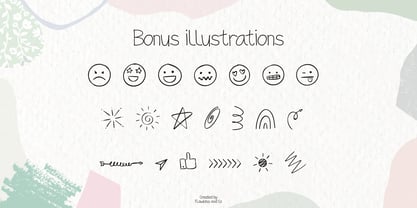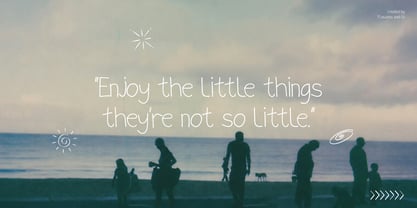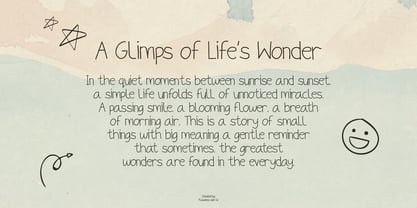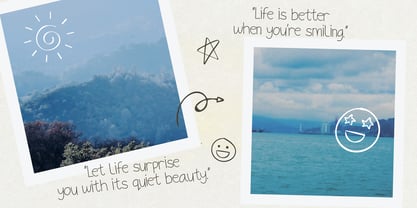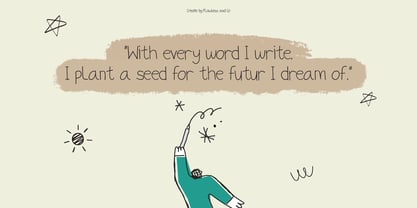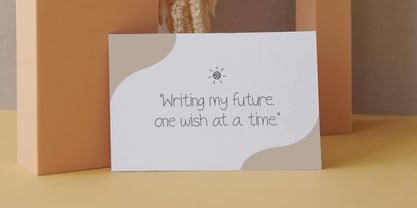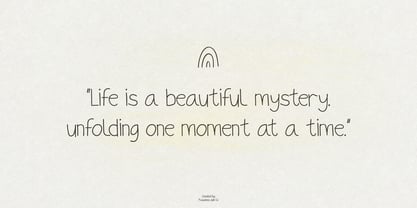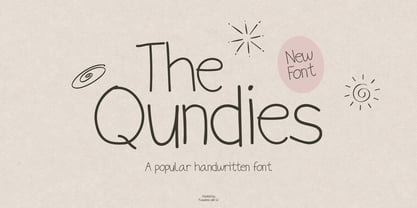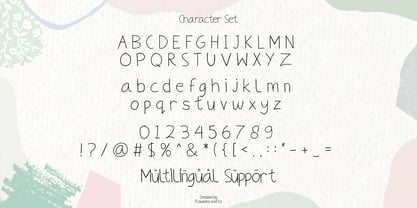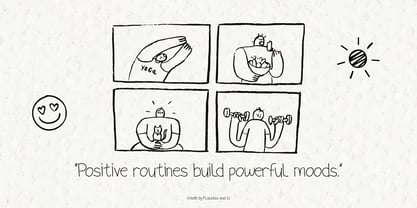
The Qundies
by Flawlessandco
The The Qundies Font Family was designed by Achmad Yani and published by Flawlessandco. The Qundies contains 1 styles. More about this family
THE QUNDIES a handwritten font that brings out the perfect blend of casual charm and effortless style. Carefully crafted to look as natural as real handwriting, this font adds a personal touch to your creative projects. Whether you're working on branding, logo design, Instagram quotes, packaging, wedding stationery, or just adding a handwritten feel to your design — THE QUNDIES is ready to make your work stand out.
Features :
Multilingual, Uppercase alphabet A-Z, Lowercase alphabet a-z, Numbers 0-9, Some punctuation, Alternates & Ligatures
Designers: Achmad Yani
Foundry: Flawlessandco